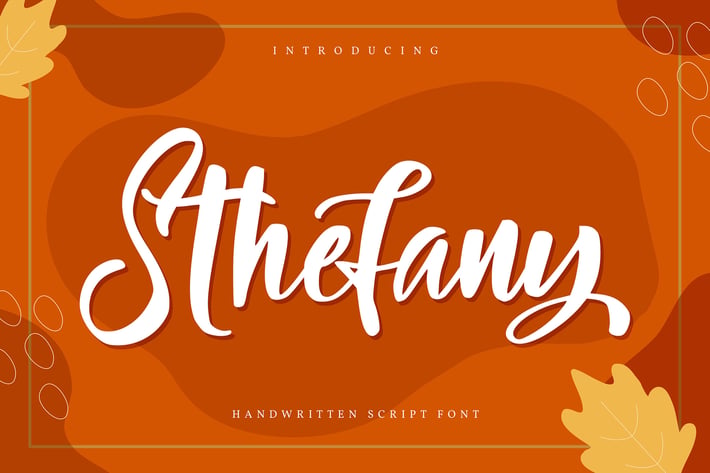
Sthefany | Handwritten Script Font
Sthefany | Handwritten Script Font with a calligraphy style, So beautiful on invitation like greeting cards, branding materials, business cards, quotes, posters, and more!